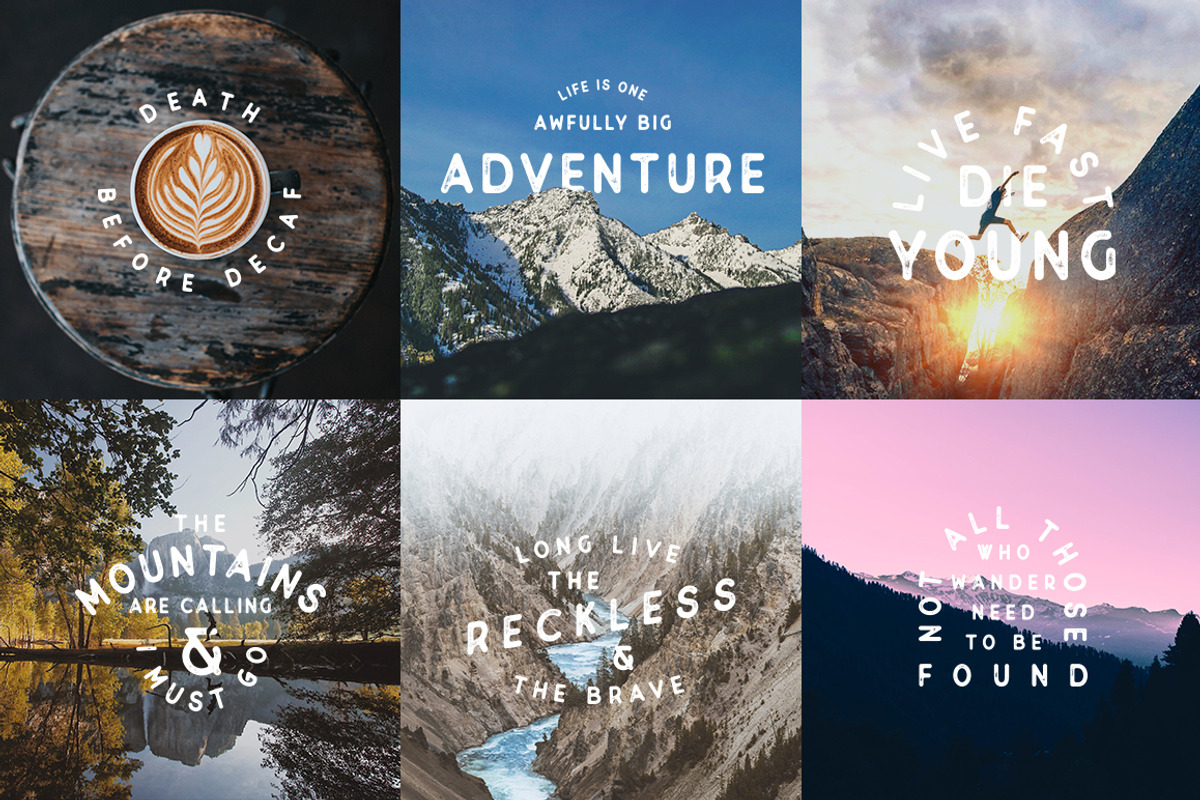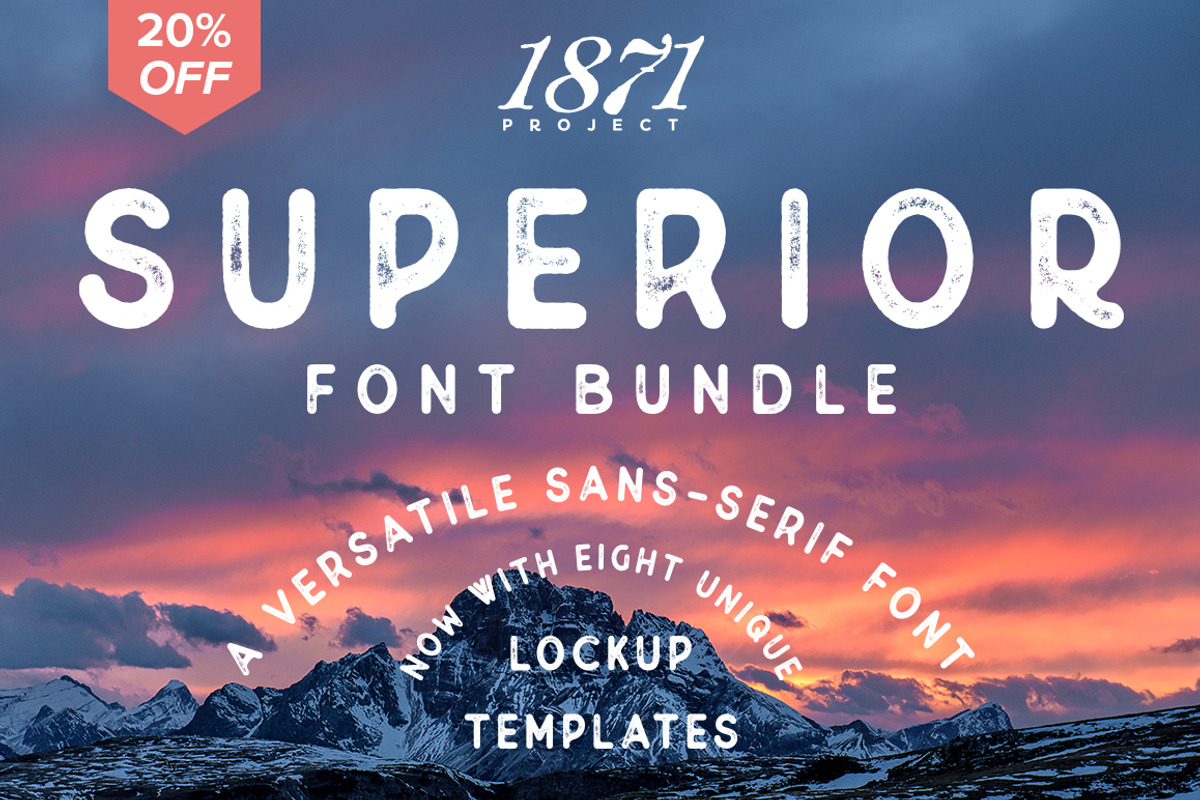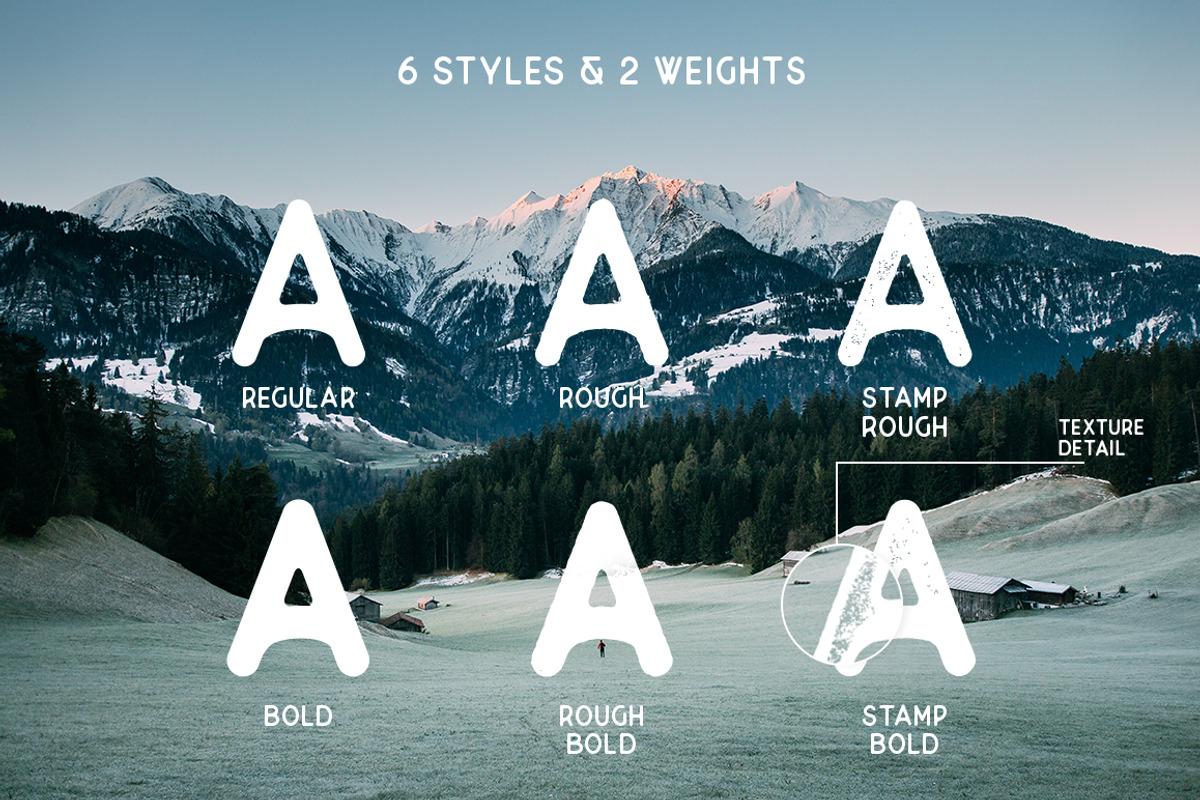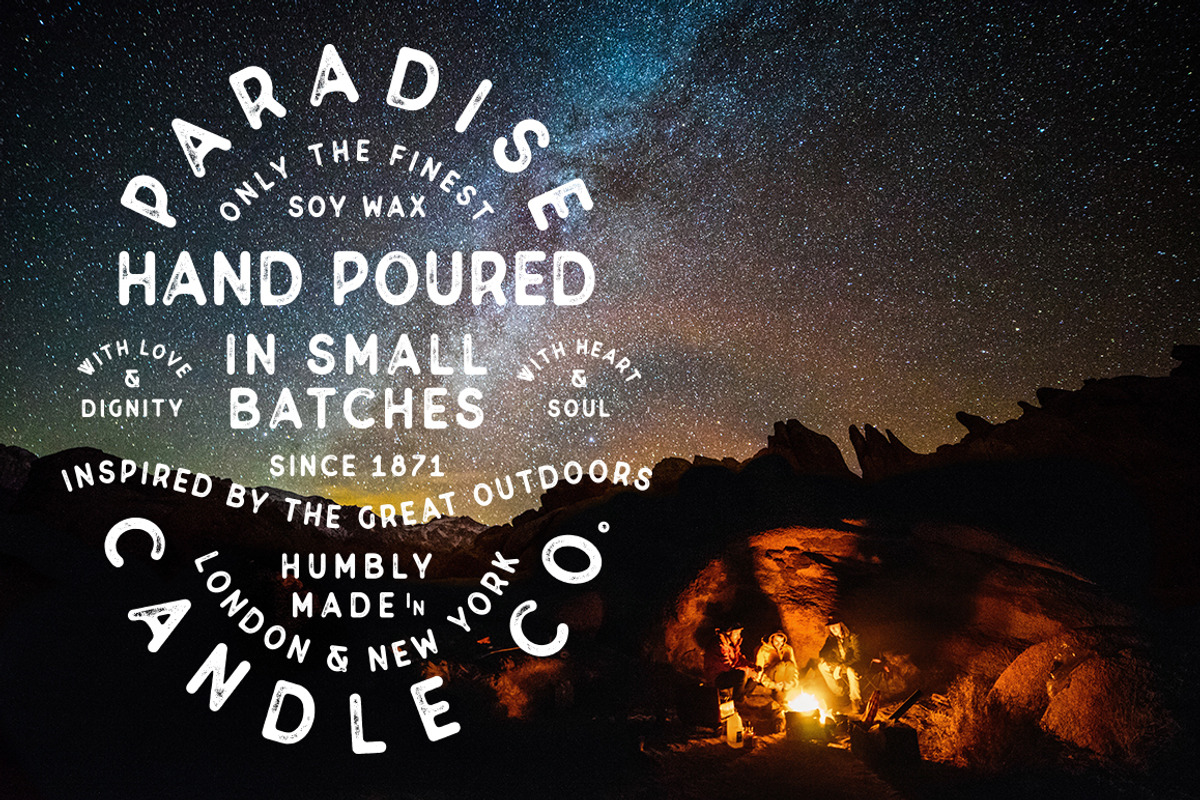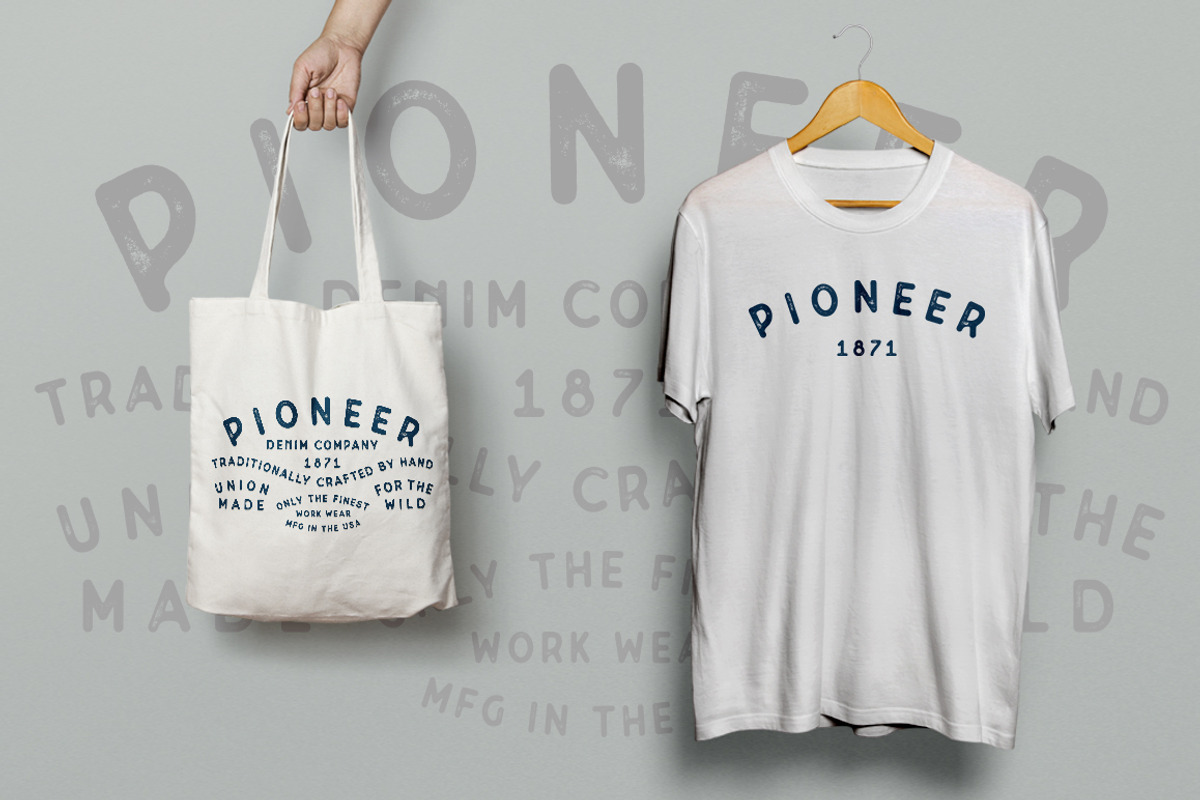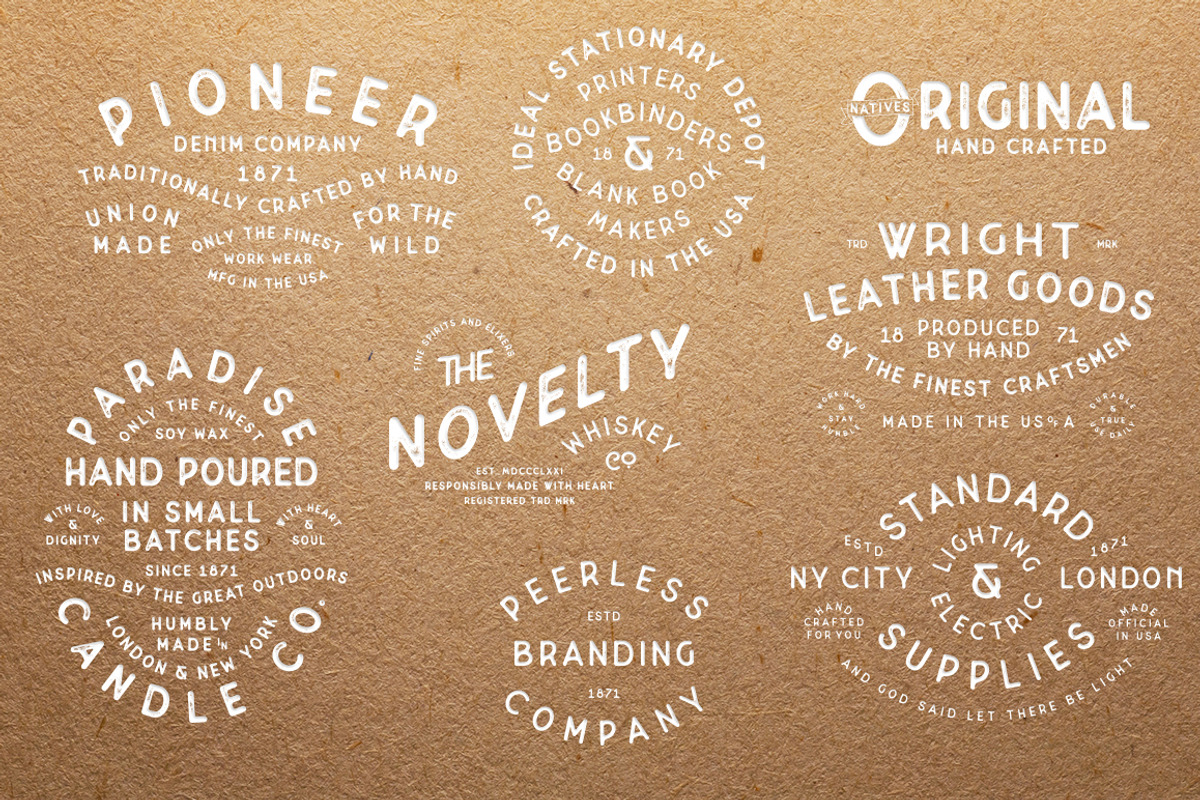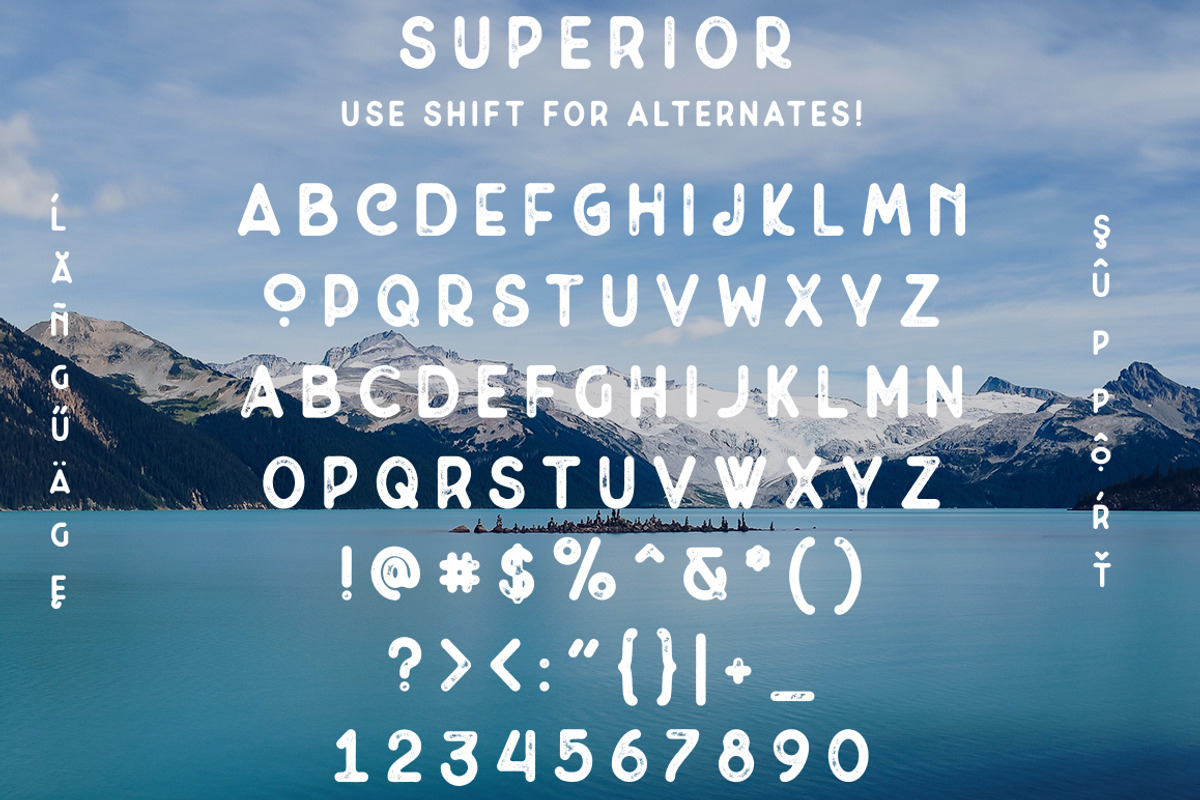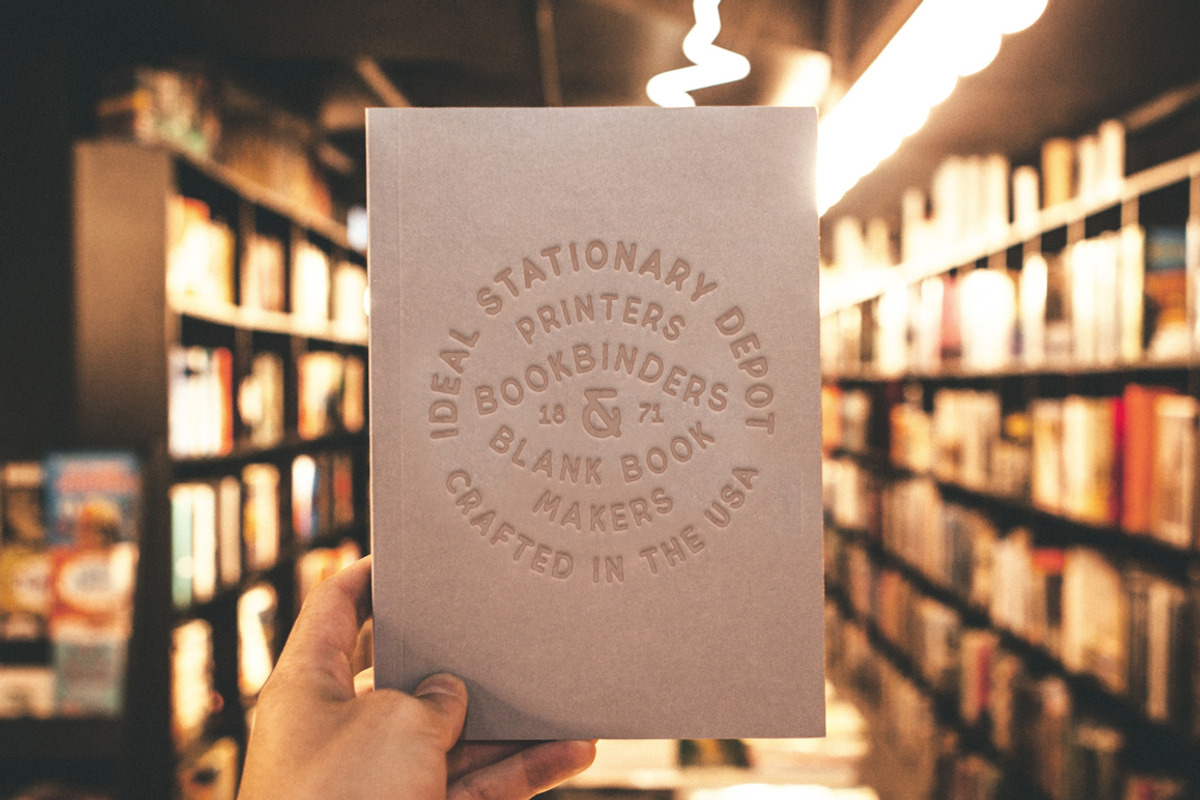
Superior Font Bundle
Superior Font Bundle by 1871 Project is a font selected for branding, posters, packaging, typography.
- Superior comes in 2 weights Superior also comes in 6 different styles Use shift or caps-lock for alternate letters If you have any questions
Superior Font Bundle by 1871 Project fits naturally into Branding, posters, packaging, typography.